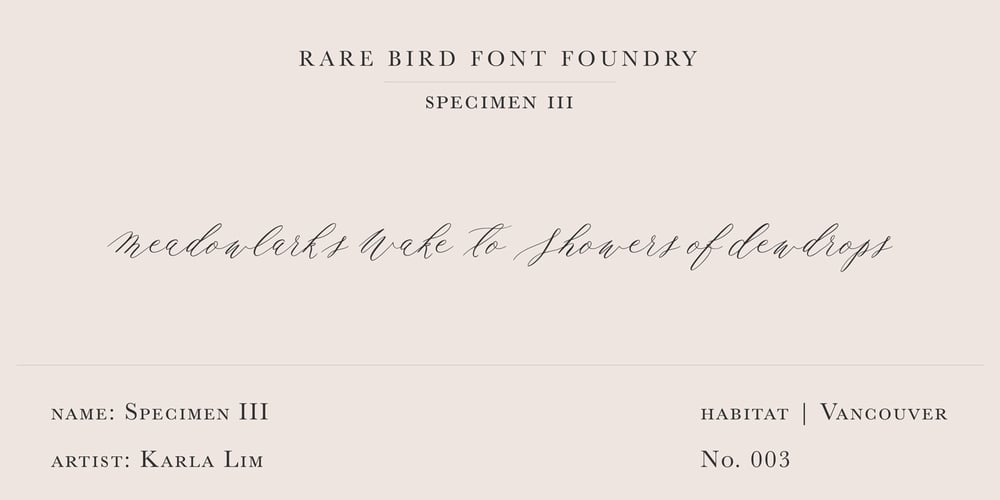
Rare Bird Specimen III Font Family was designed by published by Rare Bird Font Foundry. Rare Bird Specimen III contains 1 styles and family package options. RARE BIRD SPECIMEN III Rare Bird Specimen III is a graceful hand by Karla Lim of Written Word Calligraphy. This all lowercase font feels both modern and feminine. While uppercase letters are still lowercase in shape, they are larger and read as caps. OBSERVATIONS Specimen III has a dancer-like form; supple and lithe. Willowy letters are nimble and lissome, content alone or paired with a stronger, more masculine specimen. DEFINING CHARACTERISTICS Opentype programming, formal title and preposition word art, 7 alternate lowercase t cross-strokes, Roman numerals, old-style numerals, seamlessly semi-connecting calligraphic letters, realistic double-letter ligatures, in and out-stroked letters at the beginning and end of words where appropriate, basic Latin encoding. POTENTIAL SIGHTINGS Bridal + baby shower stationery, logo design, gourmet food packaging, clothing labels.